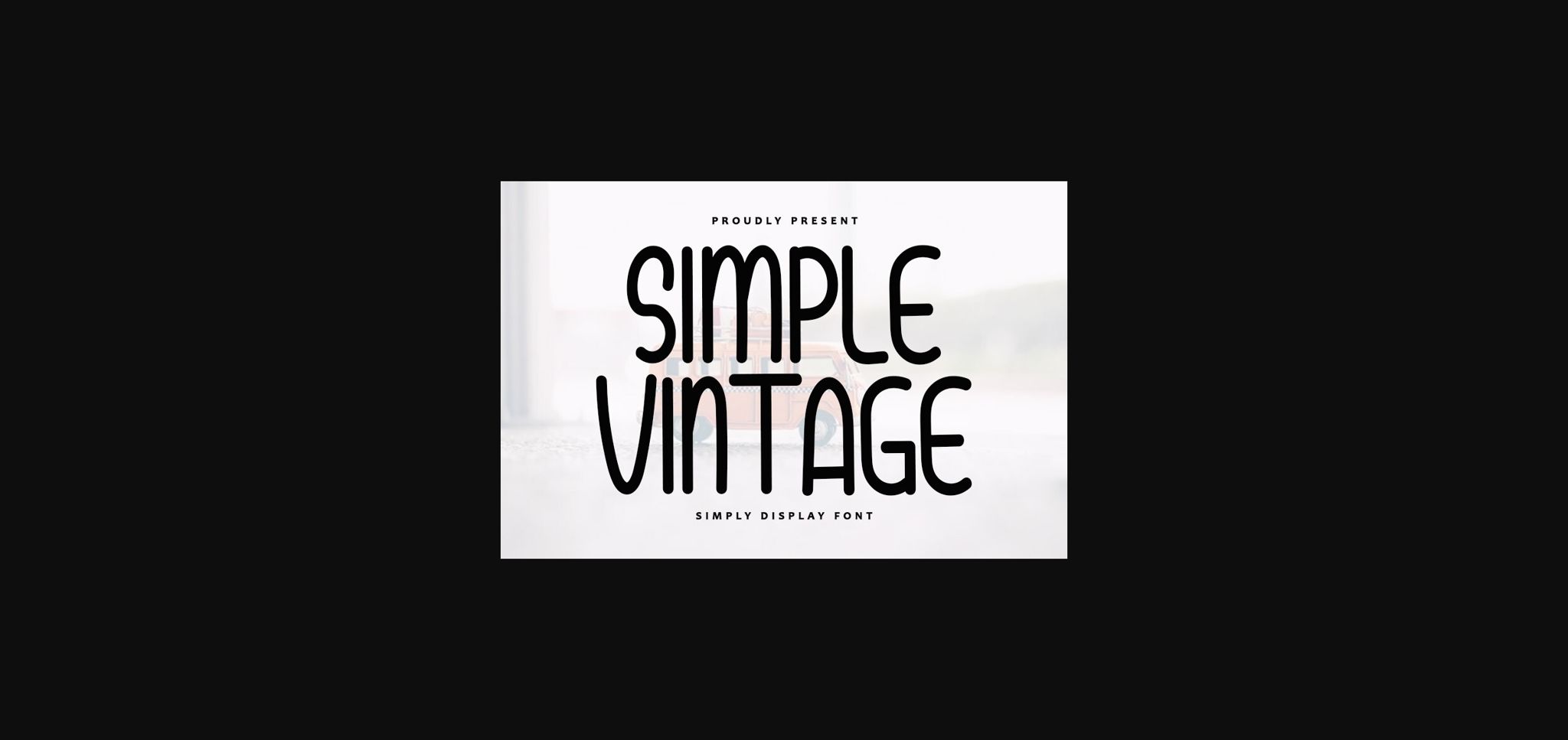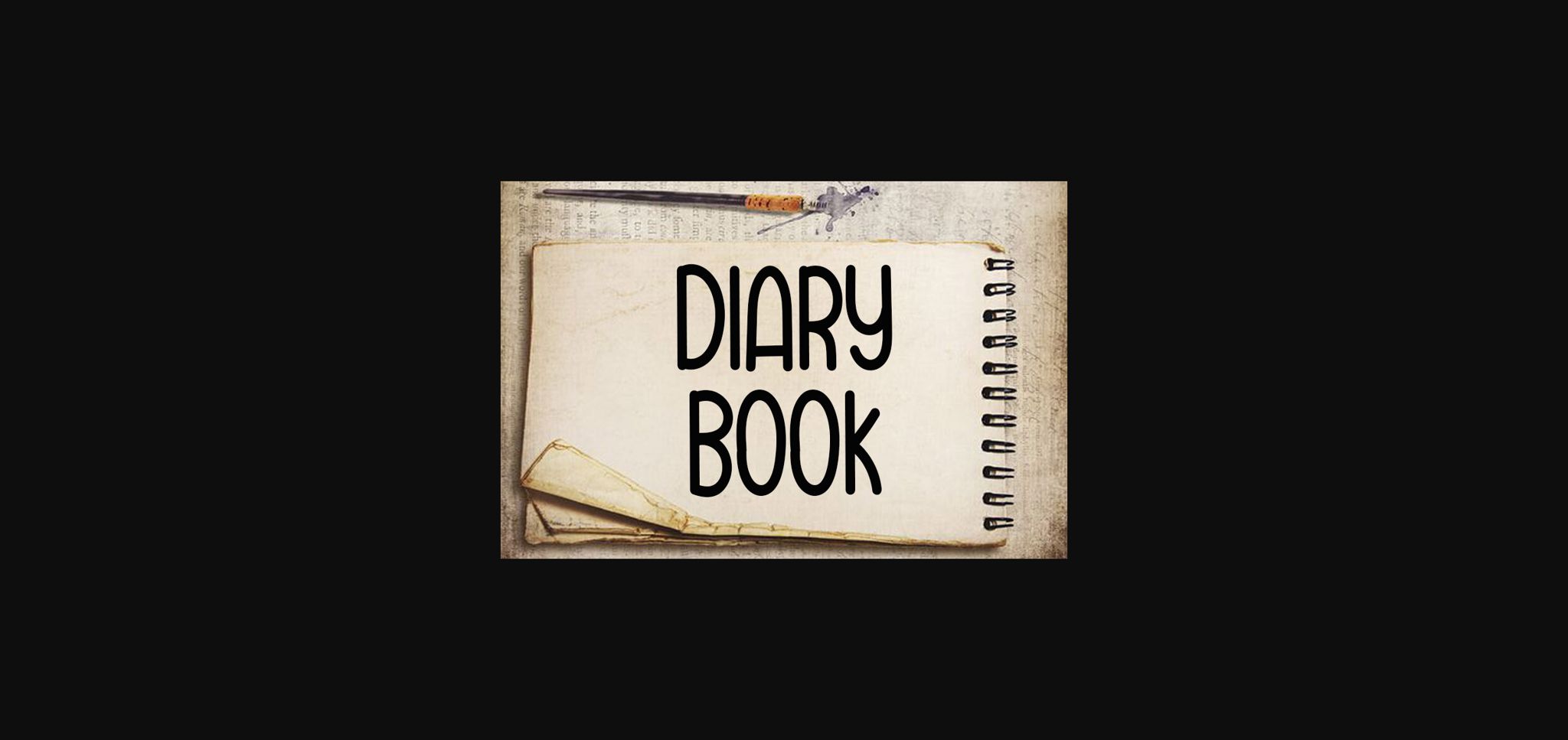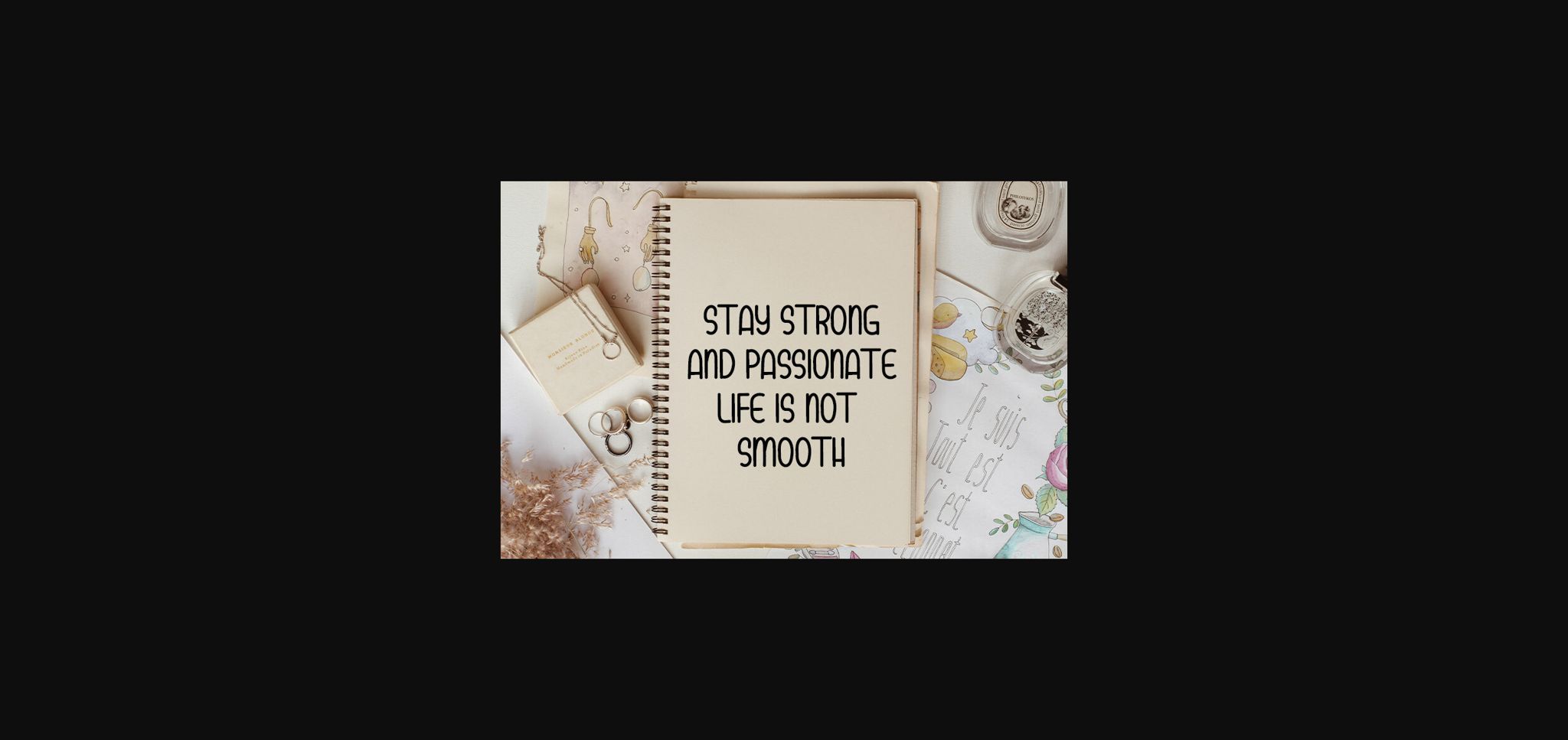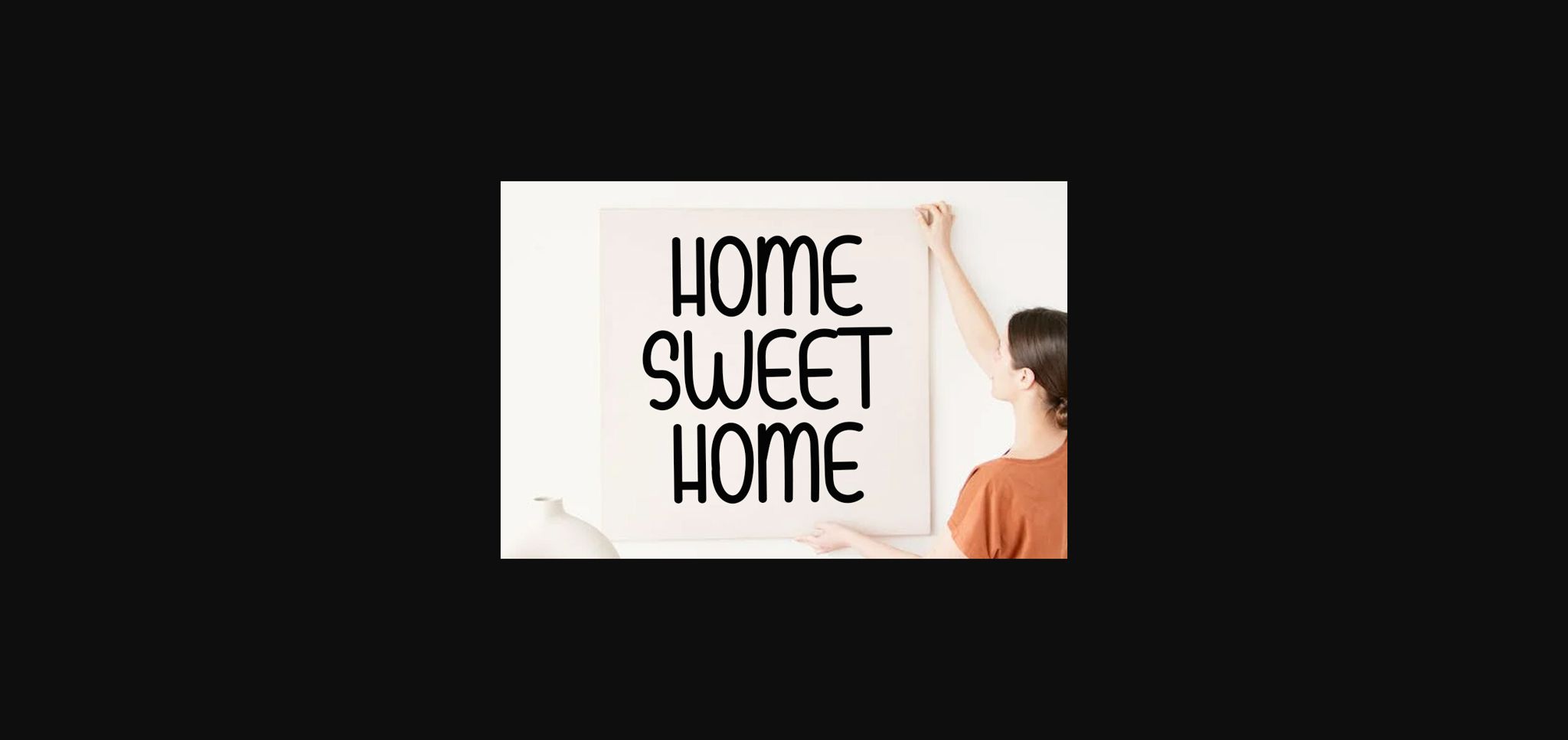
Simple Vintage Font
About Simple Vintage Font
Simple Vintage is a charming sans-serif font imbued with a sense of freshness and casual elegance. Its fluid strokes and organic lines evoke a laid-back vibe, making it perfect for various design projects. Whether used for branding, invitations, or social media graphics, Simple Vintage adds a touch of warmth and personality.